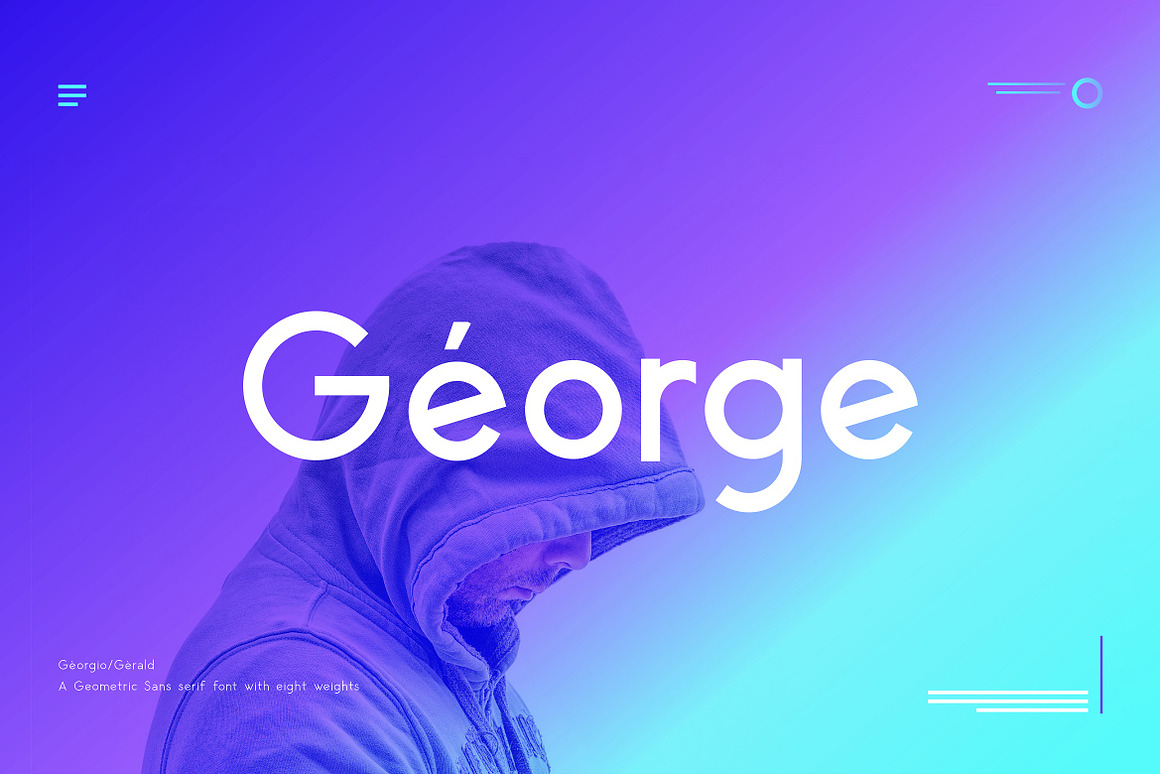
George Sans Geometric Typeface
George Sans Geometric Typeface is perfect for modern tech companies, architectural studios, minimalist brands, contemporary art galleries, design agencies, scientific publications, engineering firms, progressive corporations, digital startups, clean product packaging, systematic brand identities, and sophisticated user interfaces.
What makes George Sans Geometric Typeface exciting is its mathematical precision that embodies the purest principles of geometric design through perfectly balanced circles, squares, and triangles. This exceptional typeface represents the pinnacle of systematic typography, combining Bauhaus-inspired rationality with contemporary digital refinement that speaks to audiences seeking clarity and functional beauty. The font's geometric perfection and modular construction create visual harmony while maintaining the technical excellence required for complex information design. Its systematic approach makes it perfect for brands that want to communicate precision, innovation, and logical thinking through disciplined visual communication.
The George Sans Geometric Typeface family includes thin, light, regular, medium, bold, and black weights, each available with corresponding italic styles. The comprehensive family features condensed and extended variations, providing designers with complete geometric flexibility for systematic brand applications and complex typographic hierarchies.
Whether you're developing systematic brand identities, creating technical documentation, or designing contemporary corporate communications, George Sans Geometric Typeface Free Download provides the geometric clarity your precision-focused projects require. This premium typeface excels in environments where systematic thinking and visual consistency are crucial for effective communication and brand recognition. The font's geometric excellence works magnificently across digital interfaces and print applications, making it an indispensable asset for designers serving technology and design-conscious markets. Progressive companies and design studios choose this font for its ability to communicate innovation while maintaining perfect readability and systematic coherence. The extensive character set supports multiple languages and includes specialized technical symbols, expanding its versatility for international applications and multilingual technical communications. Professional typographers appreciate its mathematical precision and consistent performance across different scales and applications. When you implement this exceptional geometric typeface in your systematic communications, you're selecting a typography solution that celebrates rational design and mathematical beauty, ensuring your brand communicates precision, clarity, and forward-thinking methodology while maintaining the geometric integrity essential for success in technology-driven markets and design-conscious industries that value systematic approaches to visual communication.